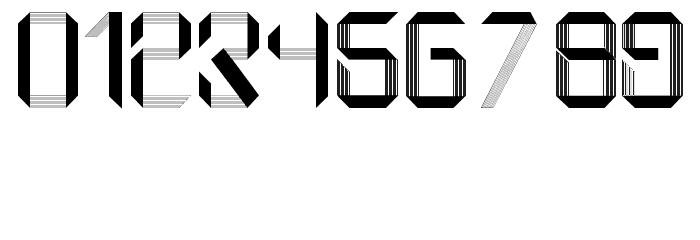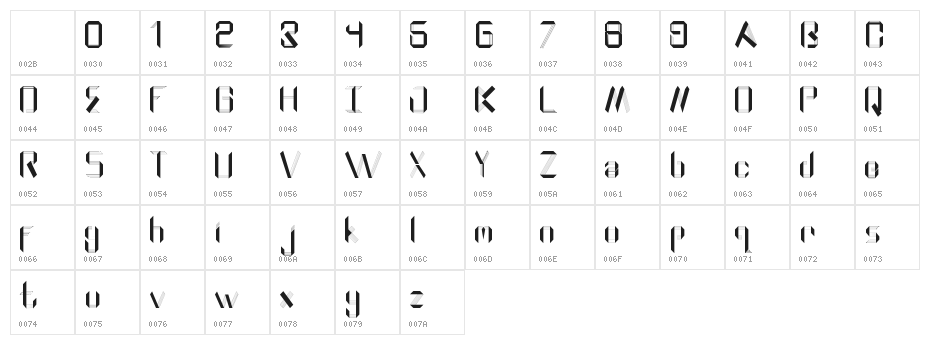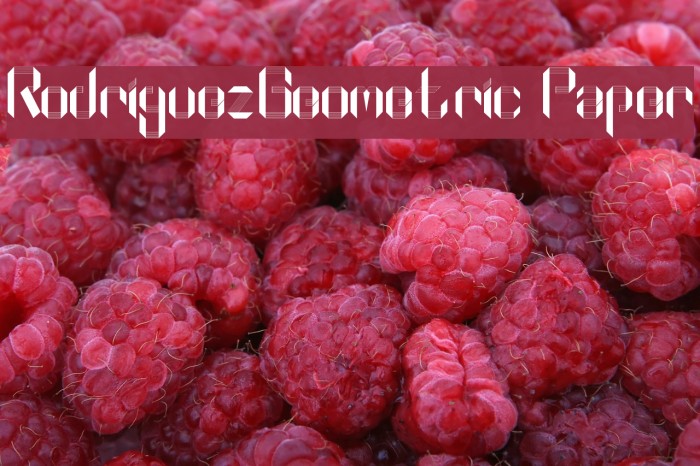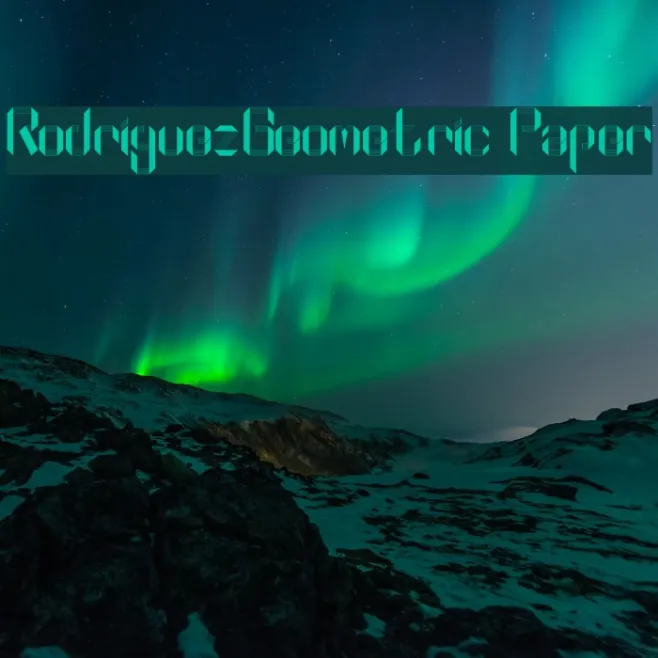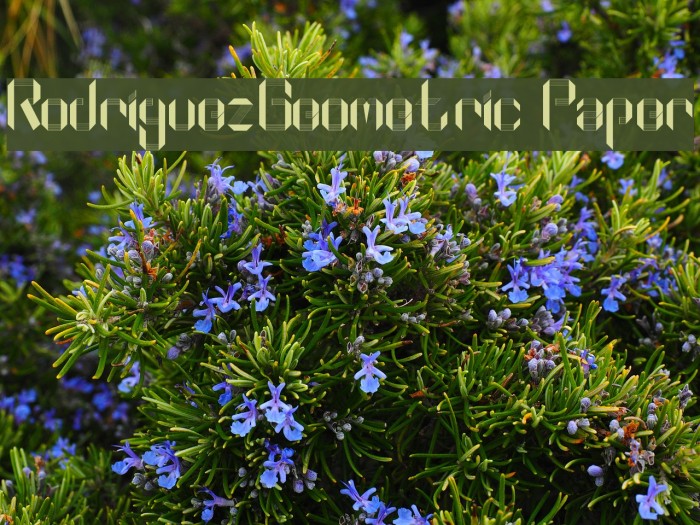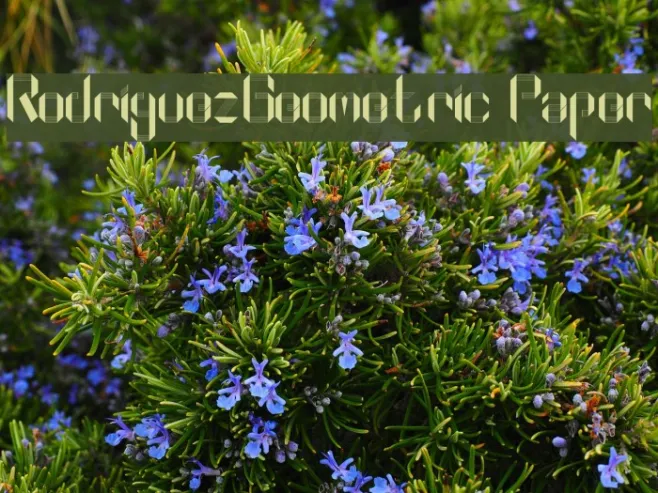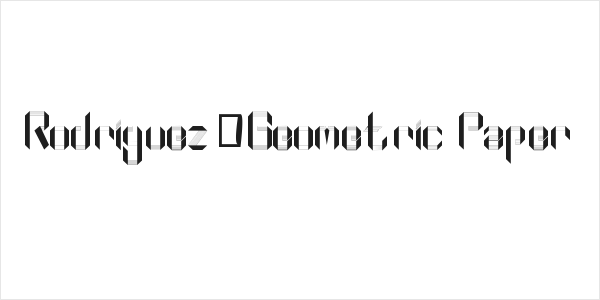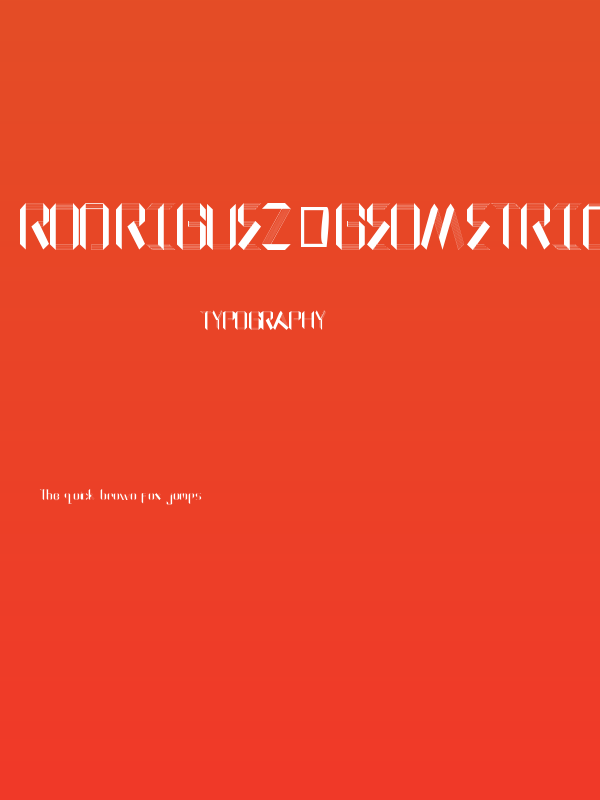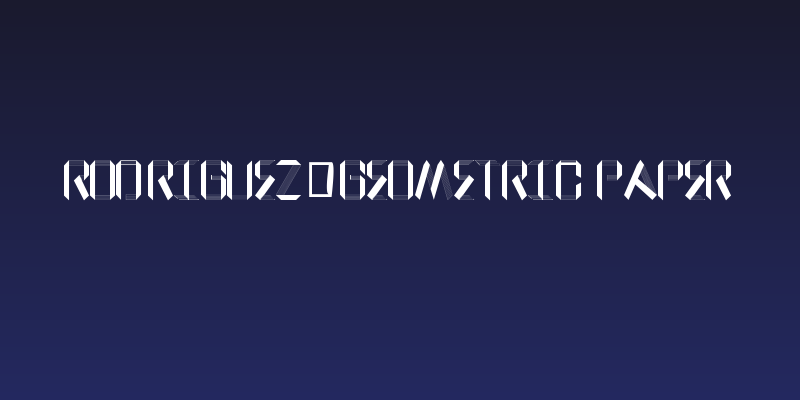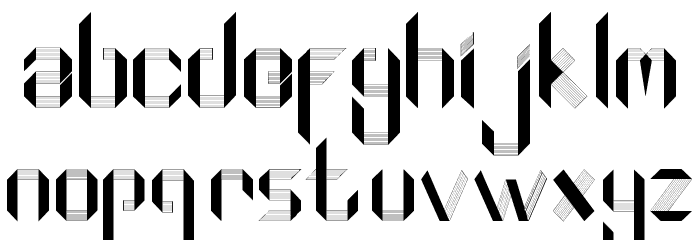
Rodriguez_Geometric Paper Font
Rodriguez_Geometric Paper Description
This font features a unique geometric design with a three-dimensional effect, created by using bold, angular lines and shadowing. Each character is constructed with a series of parallel lines that give it a layered, paper-like appearance. The uppercase and lowercase letters maintain a consistent style, emphasizing sharp angles and straight edges. Numbers and special characters follow the same design principles, ensuring uniformity across all glyphs. The font's distinct style makes it stand out, offering a modern and artistic flair that is both eye-catching and innovative.